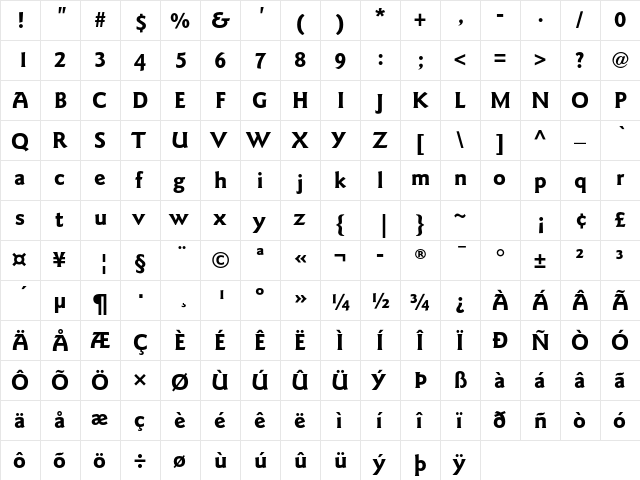
ITC Goudy Sans Std Bold Font Preview
ITC Goudy Sans Std Bold
ITC Goudy Sans Std Bold Font Details
| Designer | Frederic W. Goudy |
Design Context for ITC Goudy Sans Std Typeface
ITC Goudy Sans Std takes a measured approach to typography — its balanced proportions and neutral character make it a reliable workhorse for both digital and print work. The heavy weight commands attention and anchors typographic hierarchies.